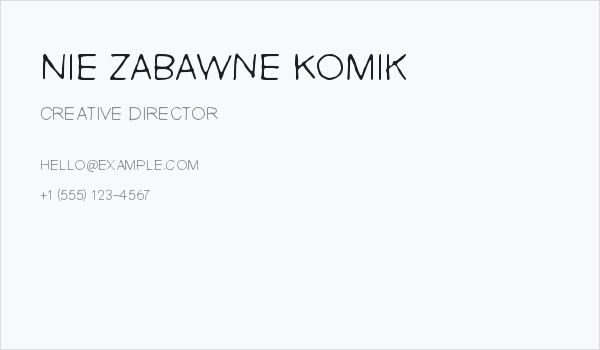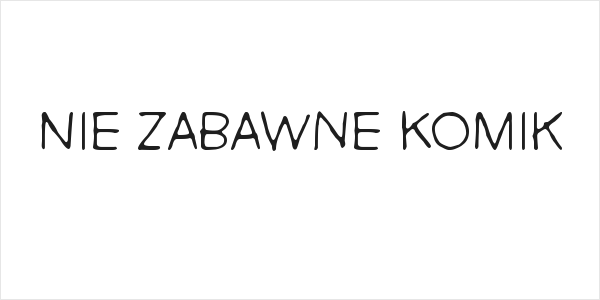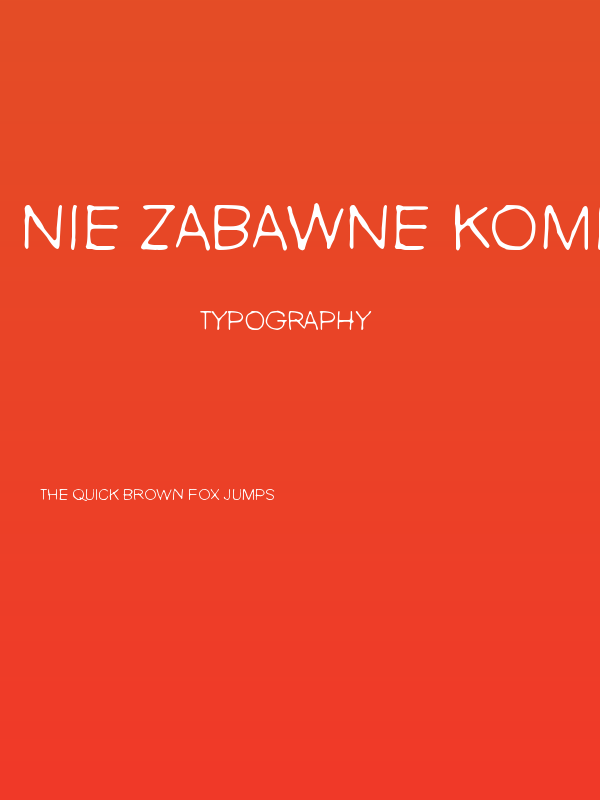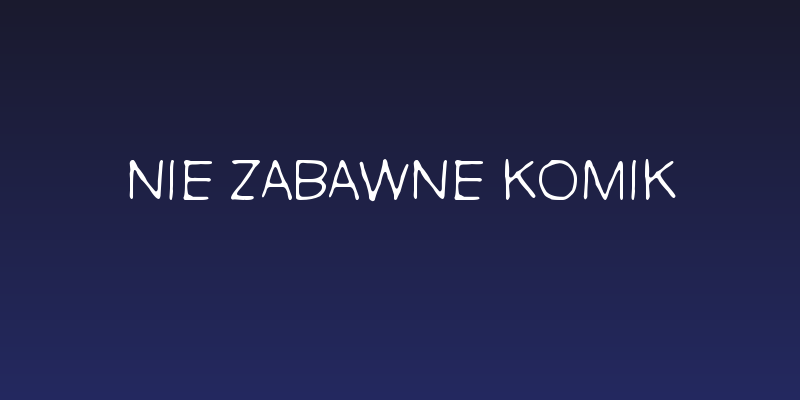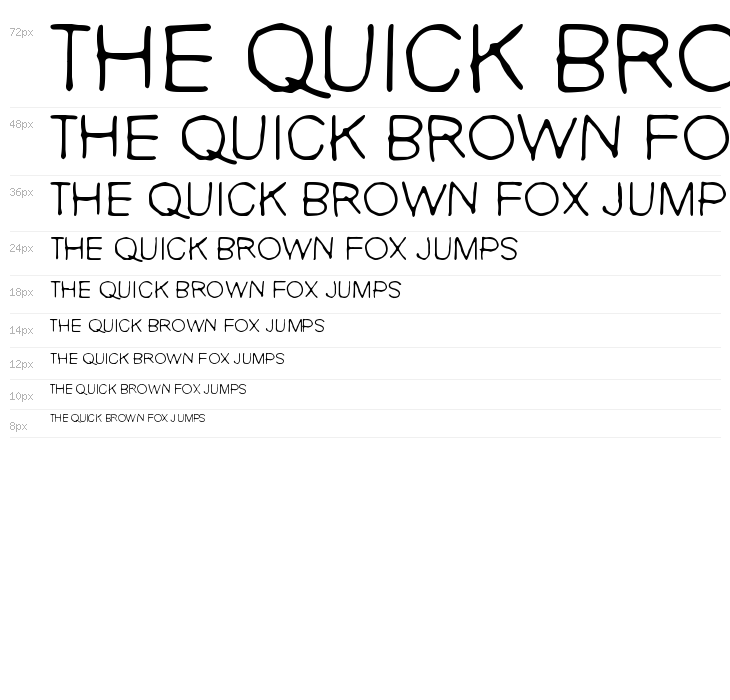
Nie Zabawne Komik Font
Nie Zabawne Komik Description
This playful and whimsical font features a hand-drawn style with irregular, slightly wobbly lines that give it a casual and informal appearance. The characters are rounded and bold, with a consistent stroke width that maintains readability while adding a touch of fun. The uppercase and lowercase letters are distinct yet harmonious, and the numerals and special characters are designed to match the overall quirky aesthetic. This font exudes a sense of humor and creativity, making it ideal for projects that require a lighthearted and approachable feel.
| Proposed Projects | Ideal for comic books, children's books, playful branding, greeting cards, and informal invitations. |